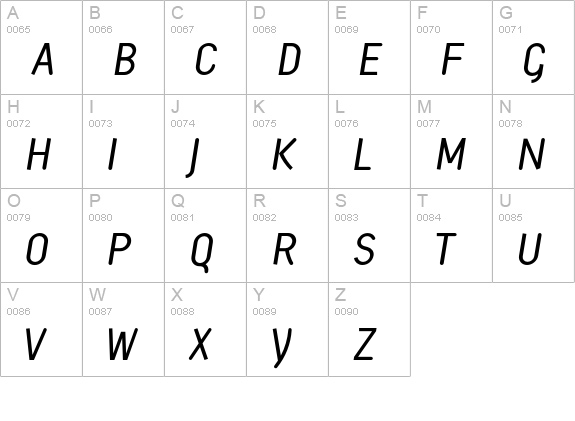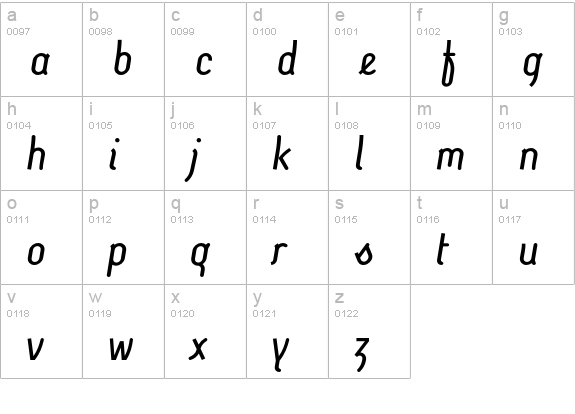
Kursiv-inbetween Font Details
Kursiv-inbetween font is a modern and stylish typeface that strikes the perfect balance between elegance and readability. Its unique design features subtle curves and sharp lines, making it suitable for a wide range of design projects. The font exudes a sense of sophistication and professionalism, making it ideal for branding, logos, headlines, and more. What sets Kursiv-inbetween font apart is its versatility and adaptability to various design styles and aesthetics. Whether you're working on a sleek and minimalistic project or a bold and eye-catching design, this font will effortlessly complement your vision. The best part? Kursiv-inbetween font is available for free download at FontsMarket.com. This means you can access this high-quality font without any cost, making it a valuable addition to your design toolkit. Don't miss out on the opportunity to elevate your designs with the elegant and versatile Kursiv-inbetween font. Download it today and unleash your creativity!